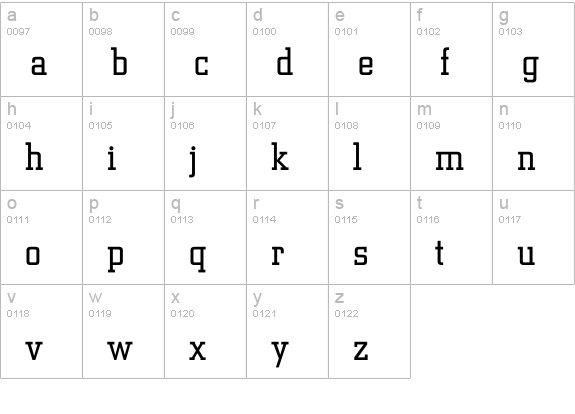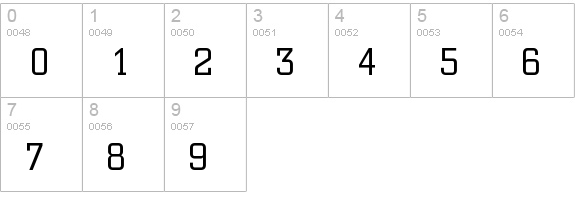
SquareSlab Lite Font Details
SquareSlab Lite is a modern and sleek typeface that exudes a sense of strength and stability. With its clean lines and balanced proportions, this font is perfect for a wide range of projects, from branding and logo design to headlines and body text. The beauty of SquareSlab Lite lies in its versatility. It can be used for both digital and print mediums, making it a go-to choice for designers and creatives alike. Whether you're working on a website, a poster, or a magazine layout, this font will add a touch of sophistication and elegance to your project. What sets SquareSlab Lite apart is not just its stunning design, but also the fact that it is completely free. Yes, you read that right - this incredible font is freely available to download at FontsMarket.com. This means that you can elevate your designs without breaking the bank. So why wait? Give your projects a modern and professional look with SquareSlab Lite. Download it for free at FontsMarket.com and start unleashing your creativity today.